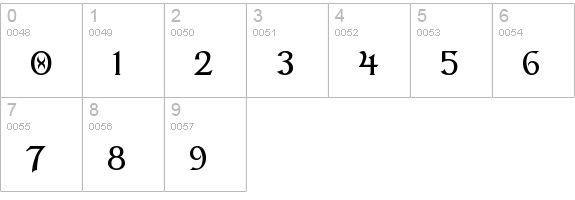
Dumbledor 1 font is a whimsical and charming typeface that exudes a sense of magical wonder and enchantment. Its playful curves and intricate details make it perfect for adding a touch of personality to your designs. Whether you're creating a whimsical poster, a fantasy book cover, or a magical branding project, Dumbledor 1 font is sure to captivate your audience. The best part? Dumbledor 1 font is completely free to download at FontsMarket.com, making it accessible to all designers and creatives looking to add a touch of magic to their projects. Embrace the whimsy and charm of Dumbledor 1 font today and let your creativity soar to new heights!